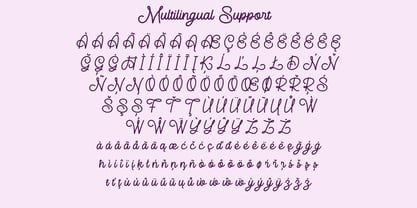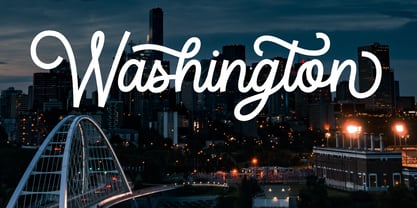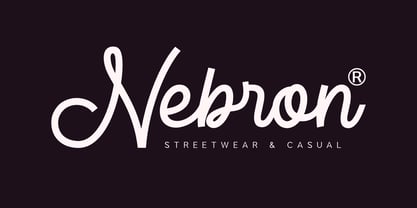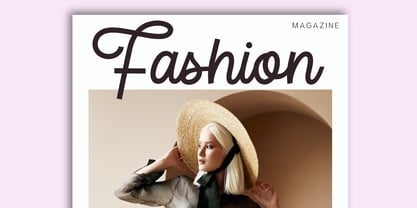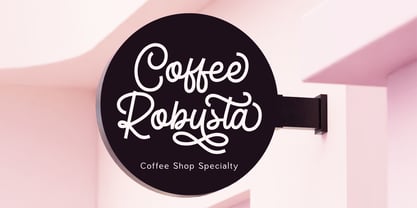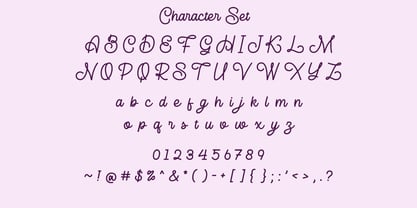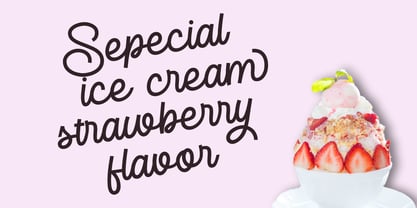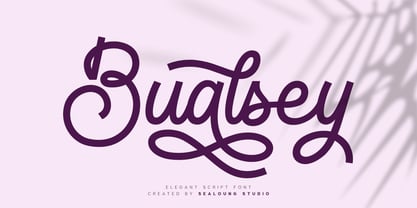
Bualsey
by Sealoung
The Bualsey Font Family was designed by Saiful Anwar and published by Sealoung. Bualsey contains 1 styles. More about this family
Bualsey is a elegant script font, perfect for logo design, branding, clothing design, signage, posters, wedding invitations, and much more! This font was designed to be highly legible and versatile for various purposes.
Inspired by the creator’s handwriting, Bualsey retains a personal touch and a handmade feel, giving it a sense of authenticity—perfect for your creative projects.
Features of Bualsey:
✔ Uppercase and lowercase letters
✔ Multilingual support
✔ Numerals and punctuation
✔ Stylistic set
✔ Ligatures
✔ Alternate characters